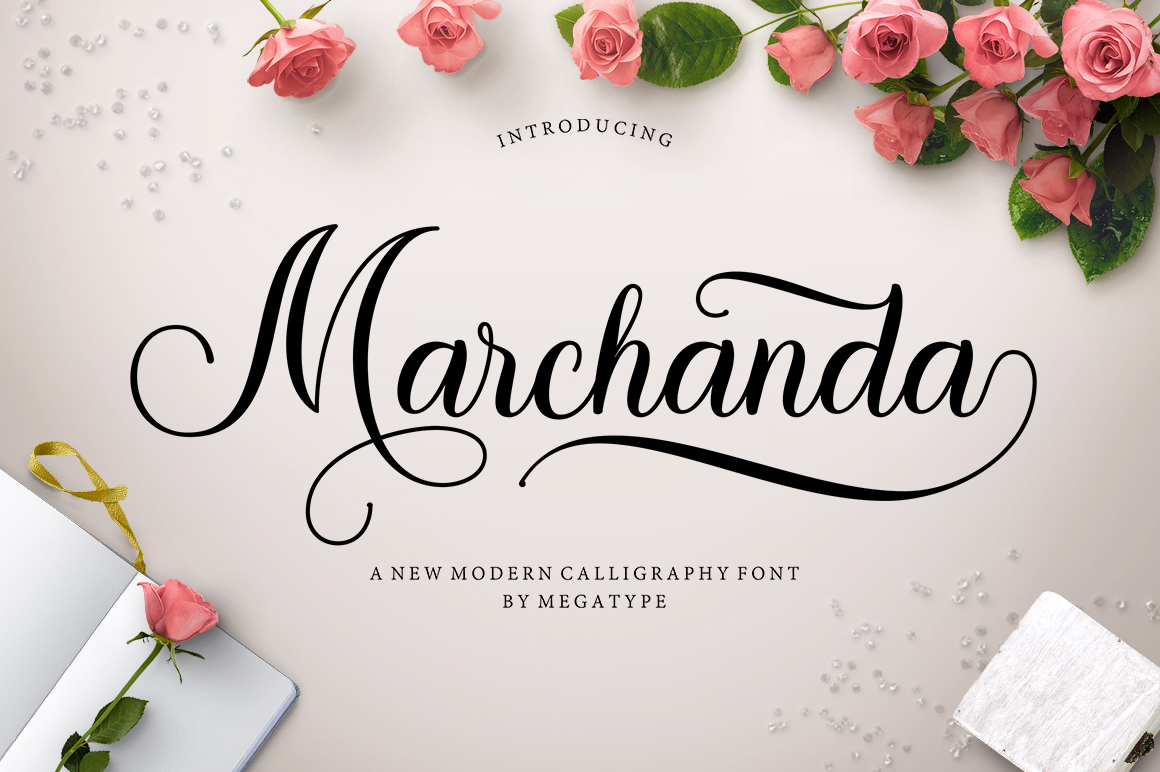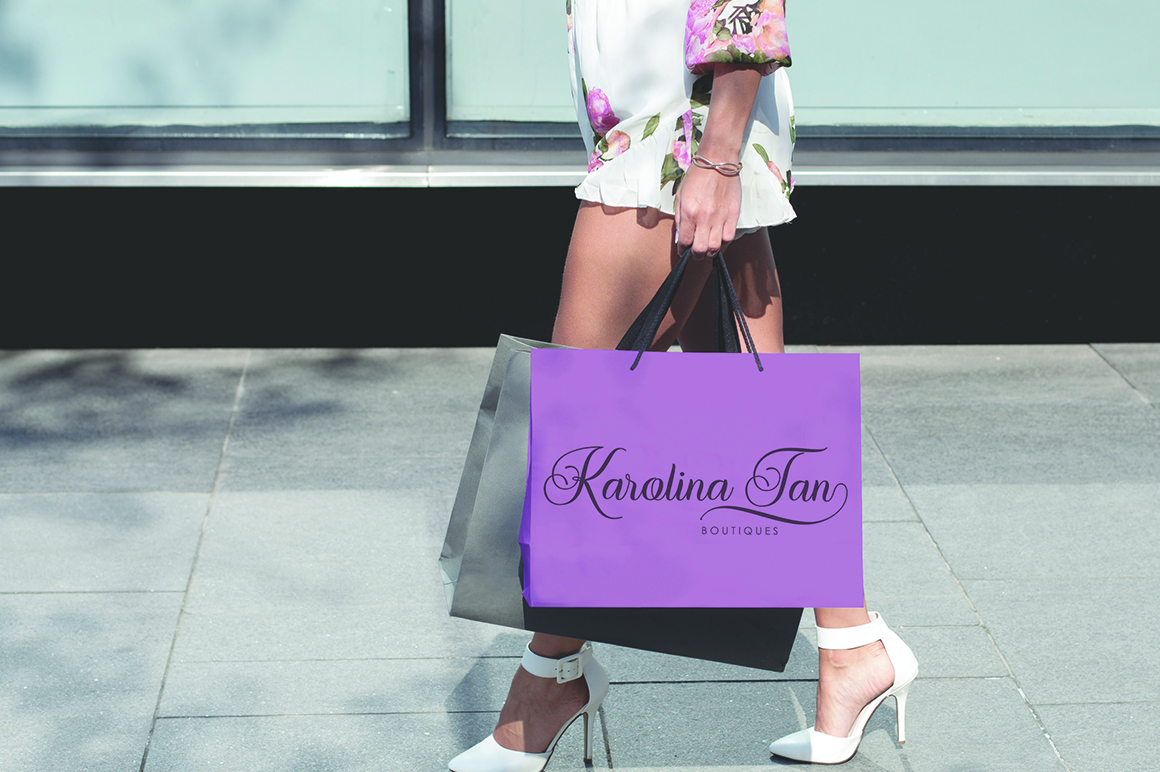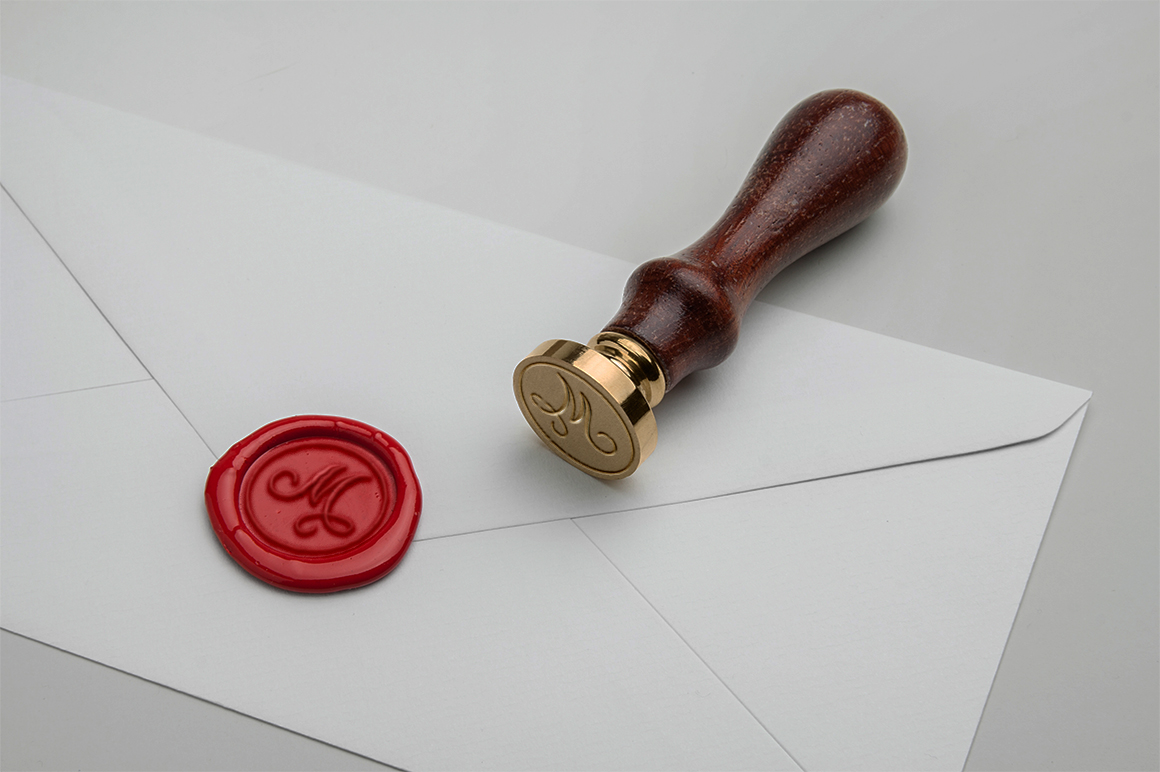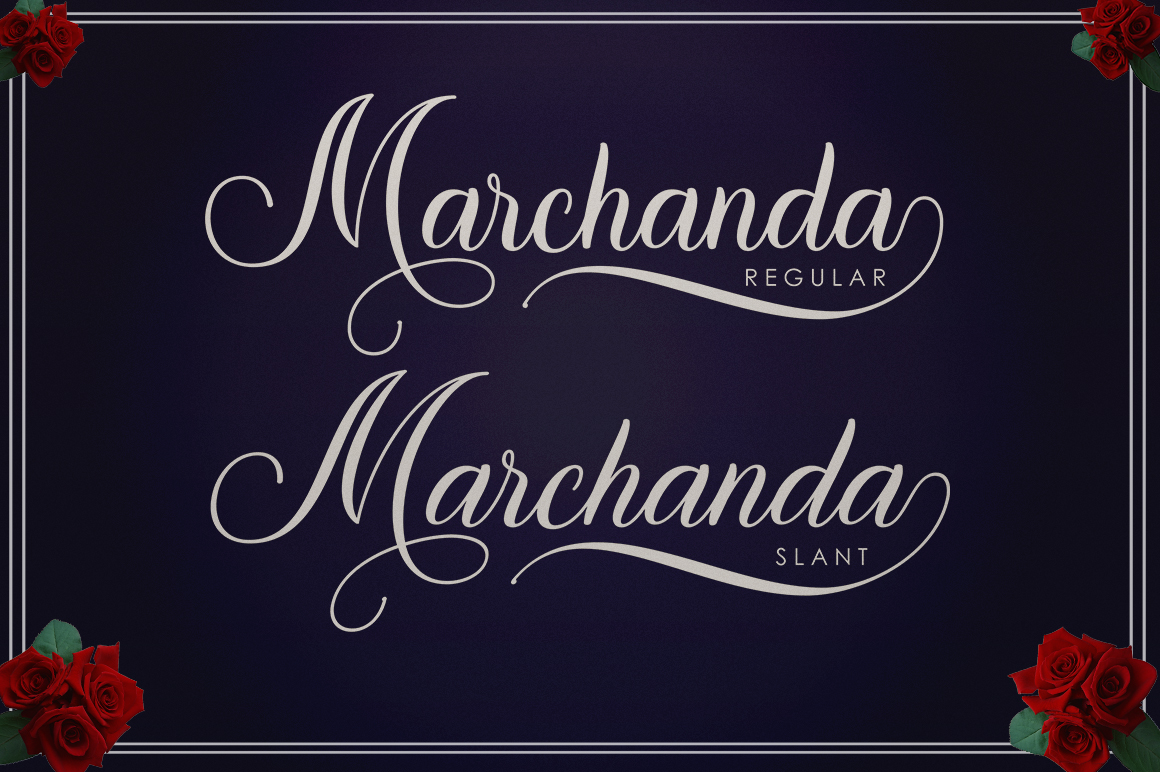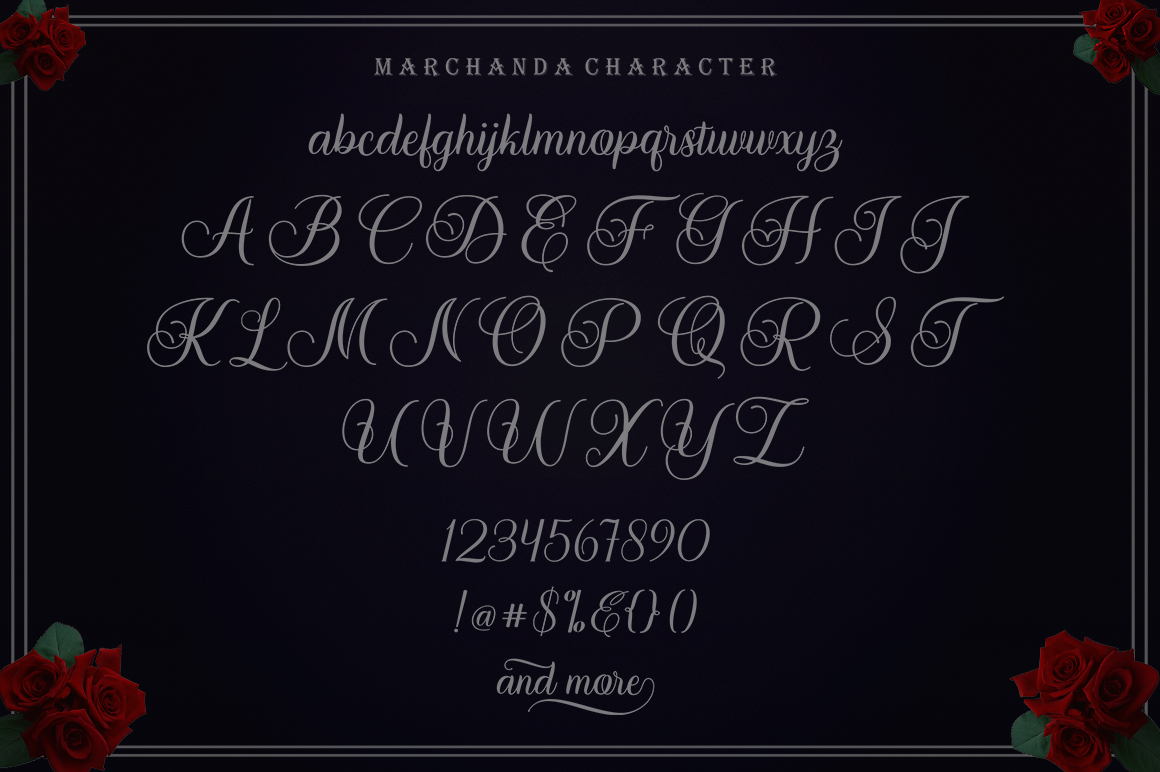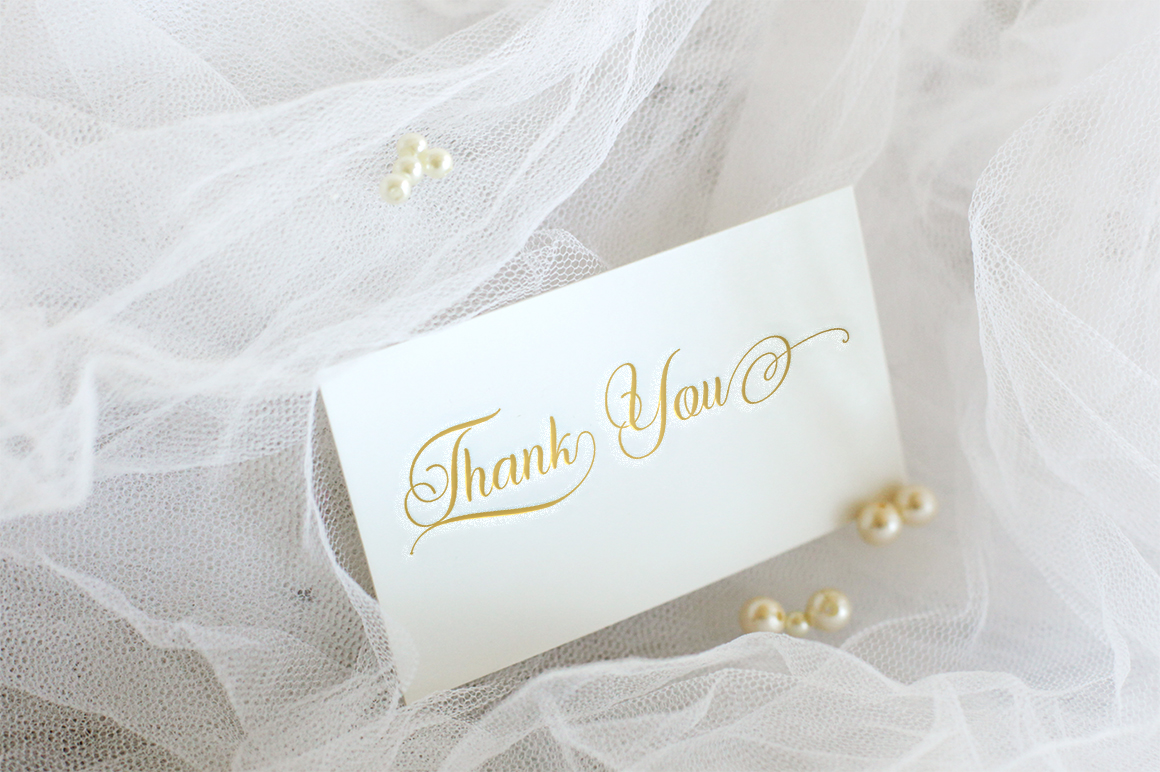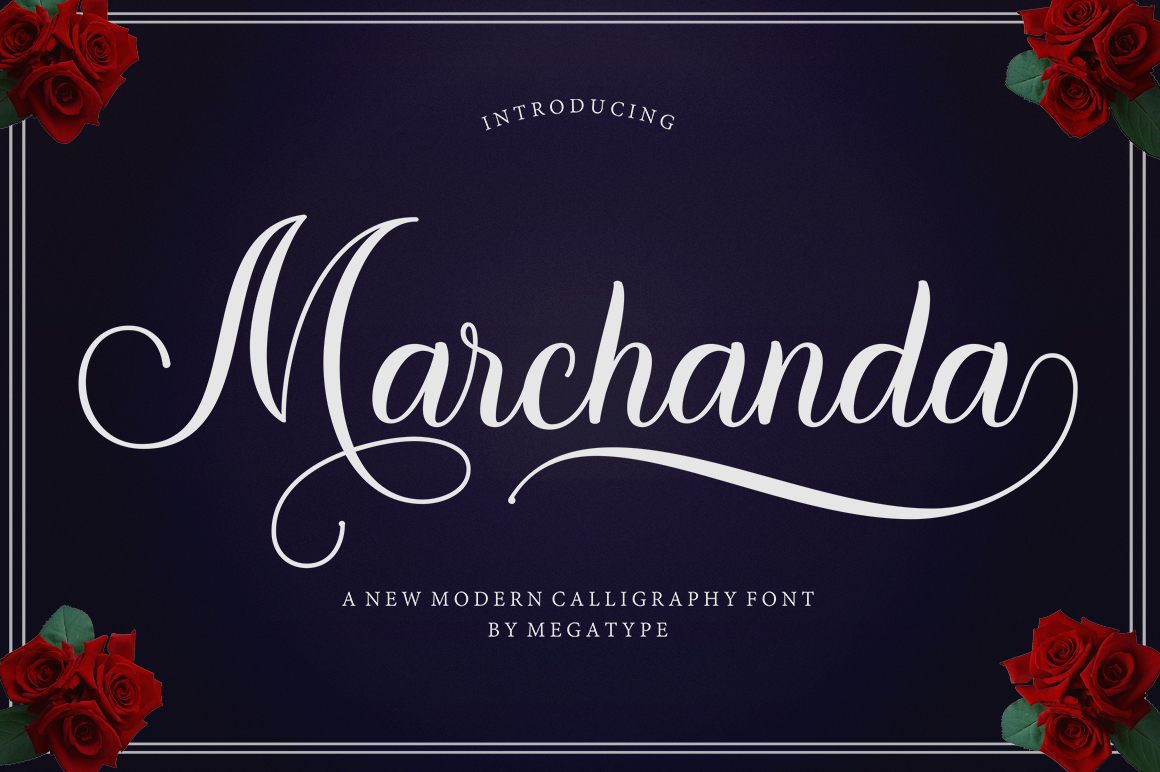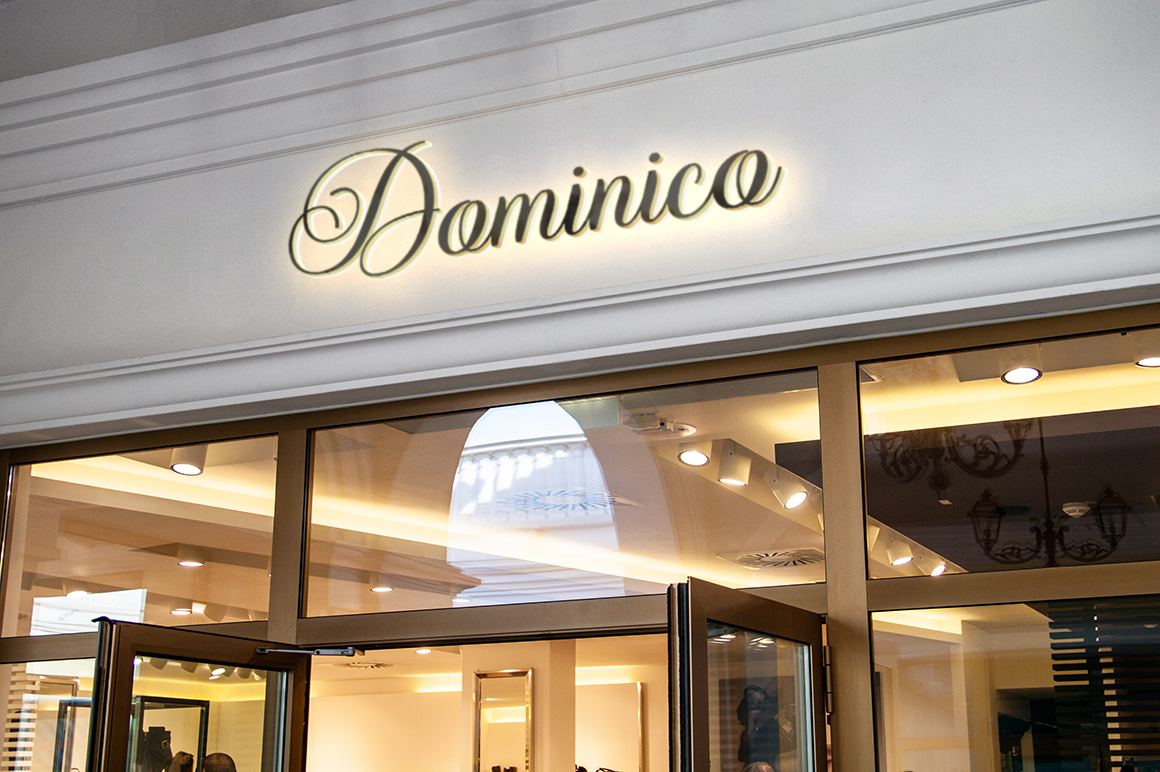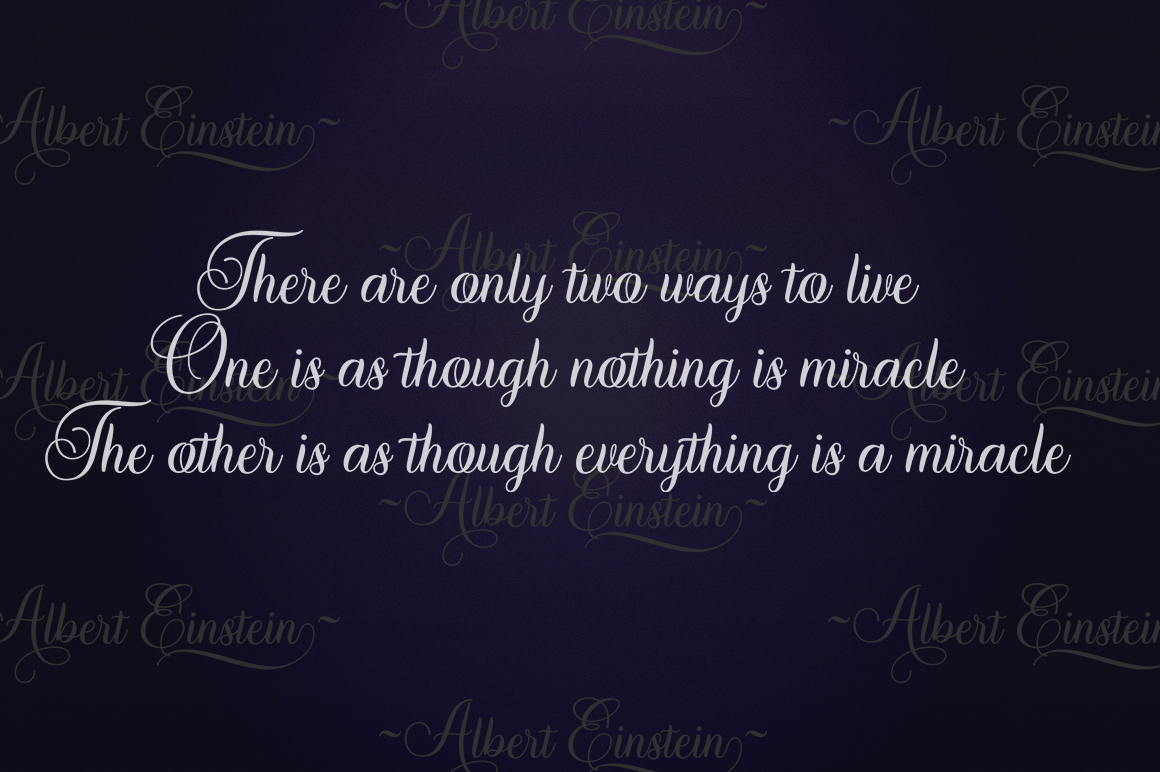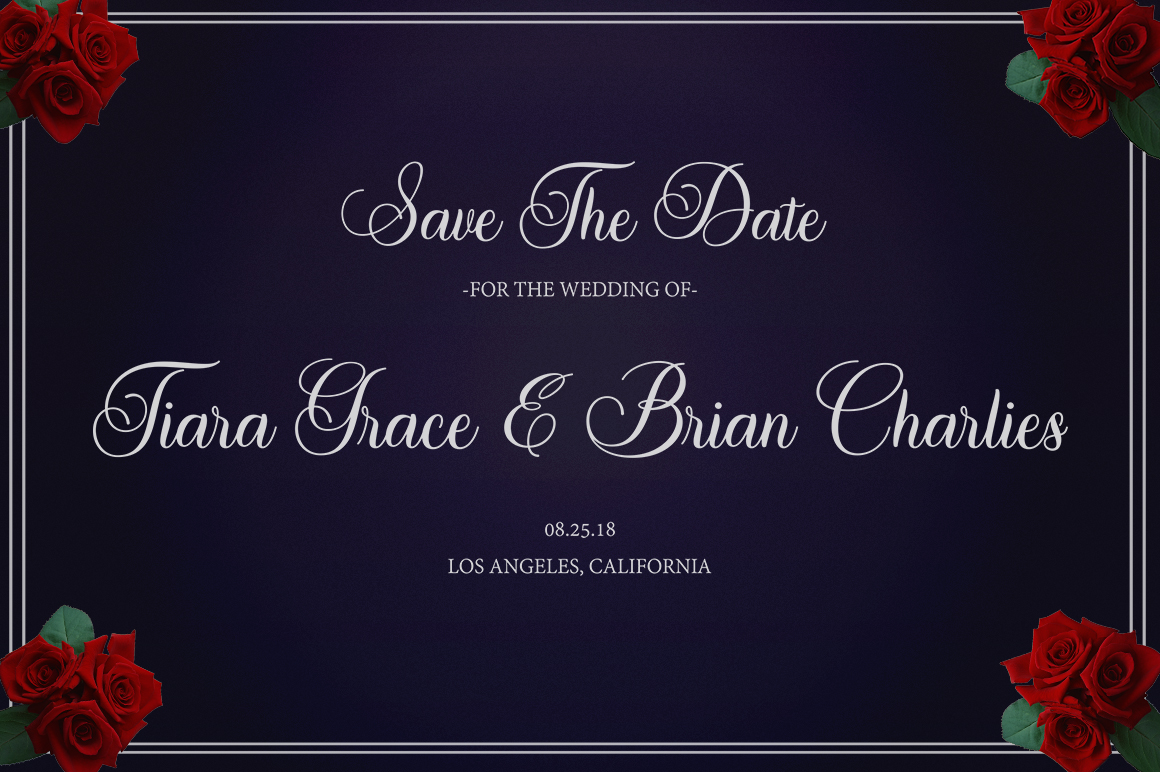
Marchanda Font
About Marchanda Font
Marchanda is a beautiful and elegant modern script that comes in both regular and slanted variations; pretty and with swashes, use Marchanda for a wide range of designs and projects that need an elegant and classy appeal.